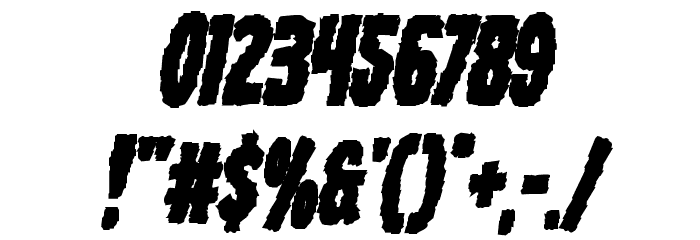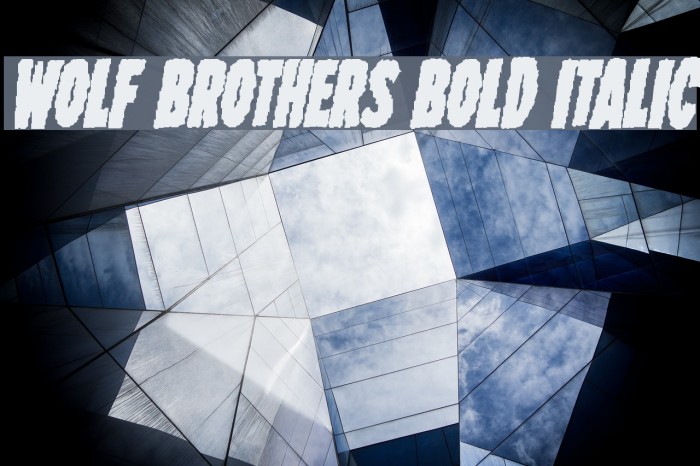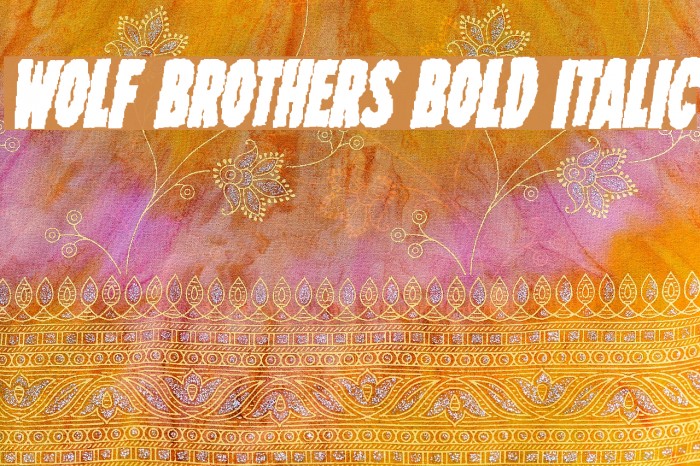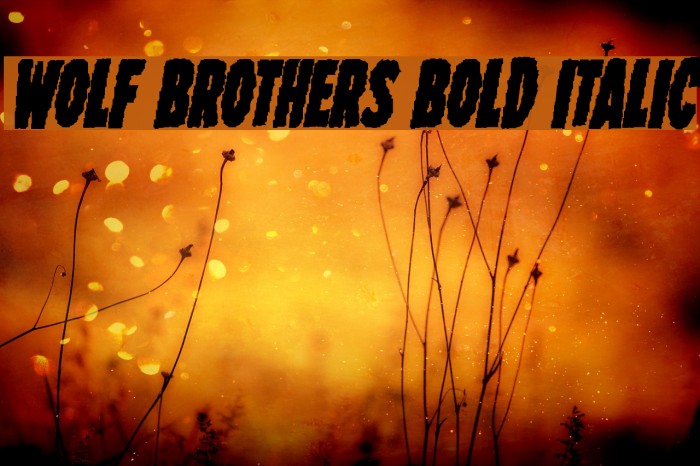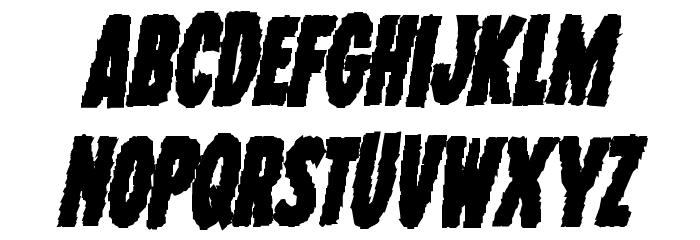
Wolf Brothers Bold Italic Font
This font exudes a bold and dynamic presence, characterized by its thick, slanted strokes that convey a sense of movement and energy. The letters are heavily weighted, giving them a strong visual impact, while the italicized style adds a touch of fluidity and speed. The overall appearance is rugged and slightly distressed, making it ideal for projects that require a bold statement. The characters are tightly spaced, enhancing the compact and powerful look. This font is perfect for grabbing attention and making a memorable impression.
A bold, italicized font with a rugged, dynamic style.
• Proposed Projects: Ideal for sports branding, action movie posters, and dynamic event promotions.
• Category: Decorative/Display
• Bold: Yes
• Italic: Yes
• Weight: Bold
• Width: Normal
• Character Spacing: Tight
• Contrast: High
• Overall Style: Dynamic and Rugged
• Use Case: Headlines, Logos, Posters